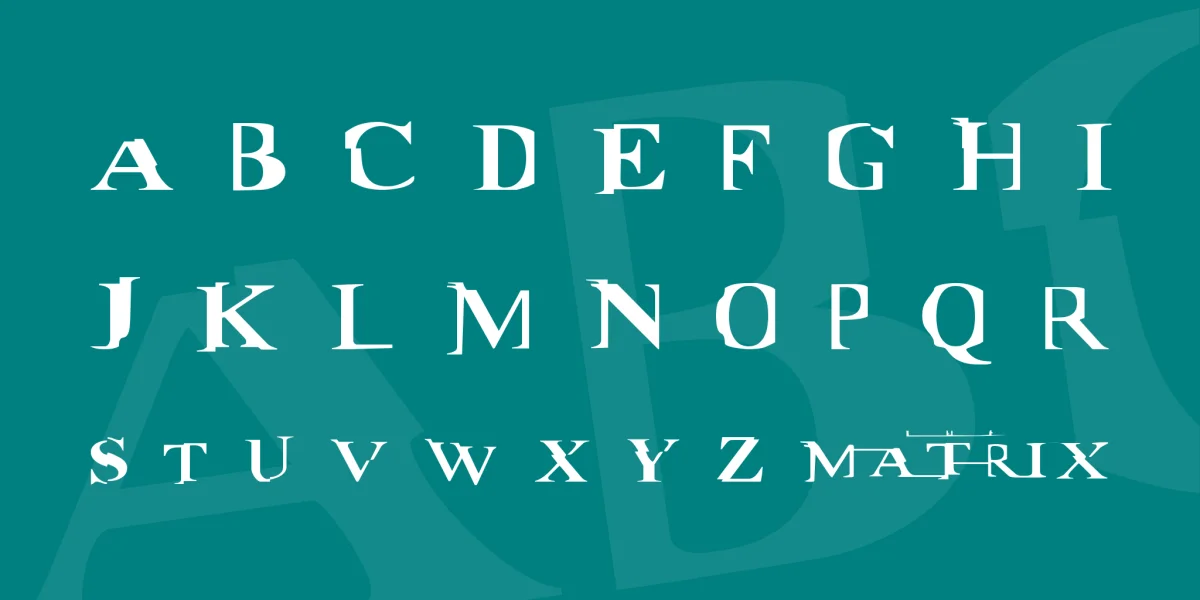
This was the first Matrix font that I'm aware of (although the version by another author is more famous). I feel it's more faithful to the movie title font than the other I've seen. It's all uppercase; draw The Matrix title with the @ symbol.